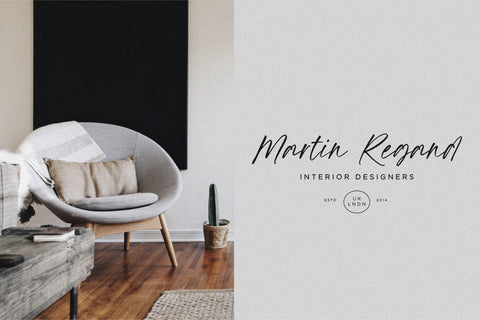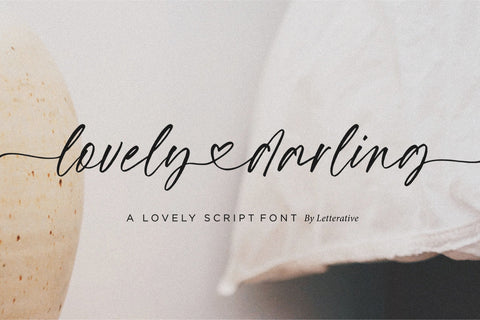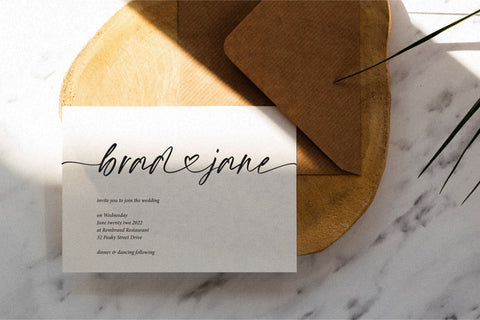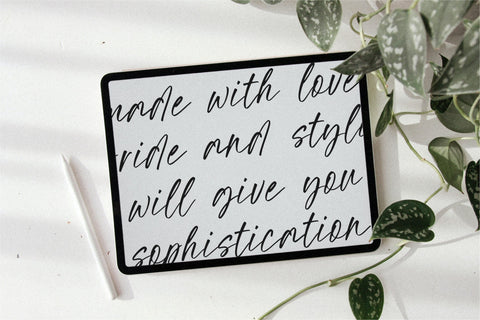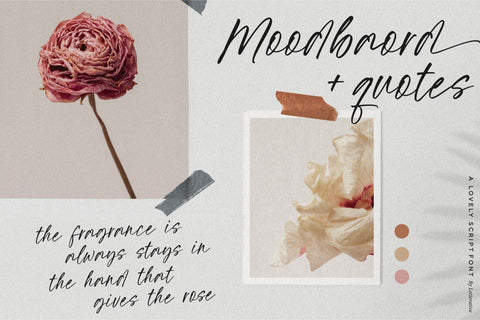
Lovely Darling Lovely Script Font
Introducing by Letterative Studio : Lovely Darling Font
Lovely Darling is a Lovely Script Font
Lovely Darling is a perfect handwritten font for product packaging, branding project, social media, wedding, or just used to express words above the background. This font is PUA encoded which means you can access all of the glyphs and swashes with ease!
This font includes :
- Lowercase Beginning and Ending Swash